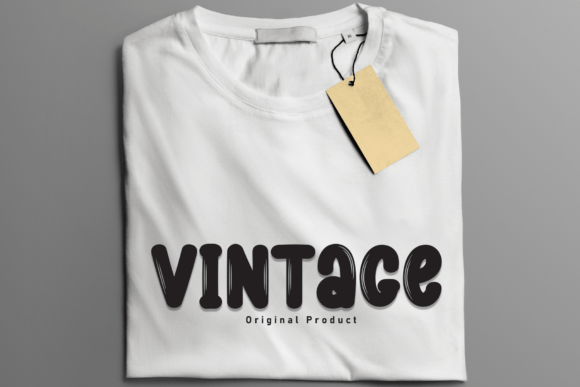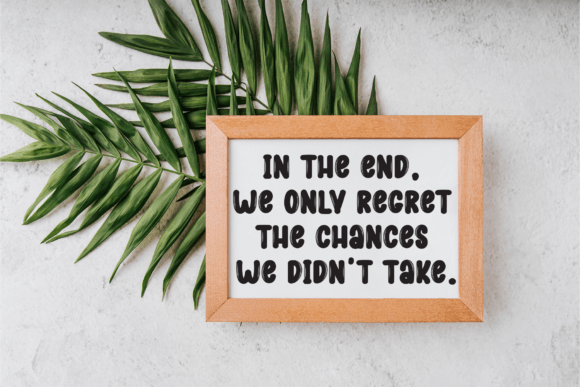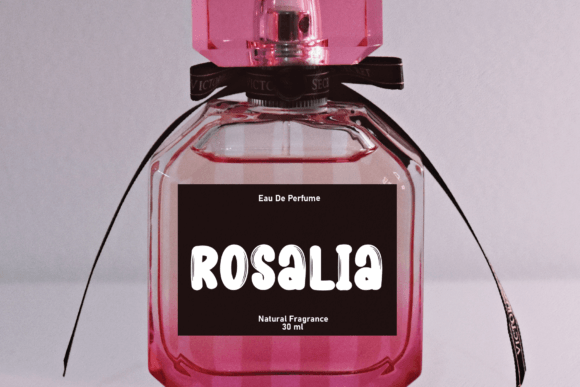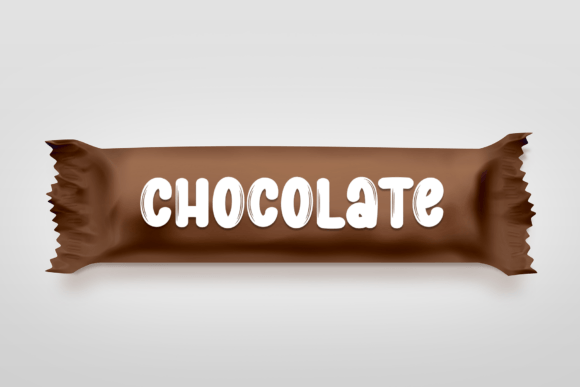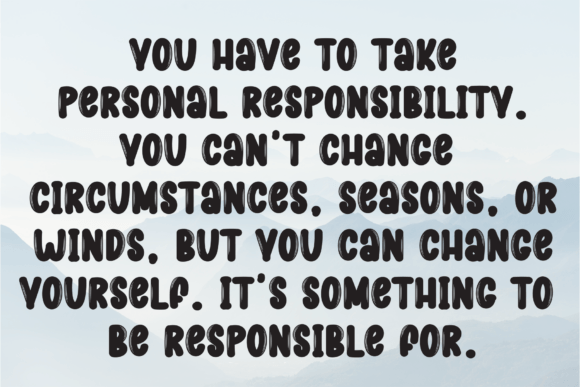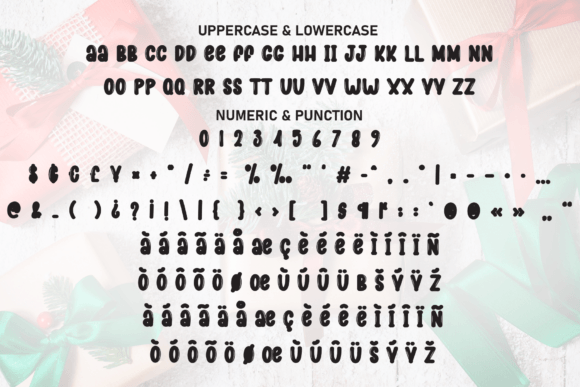
Introduction to Present Christmas Font
As a designer, have you ever found yourself searching for that perfect font to bring a smile to your holiday designs? I know I have! It’s that one moment when you’re working on a creative project, and the right font makes all the difference. For me, that moment came when I stumbled upon the Present Christmas Font – a fun and playful handwritten font that’s sure to spread joy and cheer.
With its bubbly shapes and festive vibe, the Present Christmas Font is a valuable resource for designers looking to create high-quality holiday designs. Whether you’re working on a festive advertisement, a holiday card, or a social media graphic, this font is sure to add a touch of magic to your project. And the best part? It’s available for free download with a transparent background, making it easy to use in any design project.
Key Features of Present Christmas Font
- Unique, festive design ideal for creative projects like greeting cards, gift tags, and holiday decorations.
- High-quality design resource with a transparent background for easy integration into various design elements.
- Perfect for designers looking for a fun and playful font to add a touch of Christmas magic to their work.
Honest Review: Present Christmas Font
I recently came across the Present Christmas Font, and I must say it’s a great addition to any design resource collection. The font is perfect for creative projects that require a festive touch. It’s a free download, which is always a bonus.
- Perfect for festive and holiday-themed designs ✨
- High-quality font with a transparent background ✨
- The font may not be suitable for all design projects, as it’s specifically designed for festive and holiday-themed designs ⚠️
Tips for Getting the Most Out of it
Use the Present Christmas Font in conjunction with other design elements to create a cohesive and visually appealing design. Experiment with different font sizes and styles to add depth and interest to your design. Use the high-quality font to create a professional-looking design.
The Present Christmas Font is perfect for holiday-themed designs, such as Christmas cards, gift tags, and invitations. You can also use it for creative projects, such as party decorations, gift wrapping, and social media graphics. The font’s transparent background makes it easy to combine with other design elements and create a cohesive look.